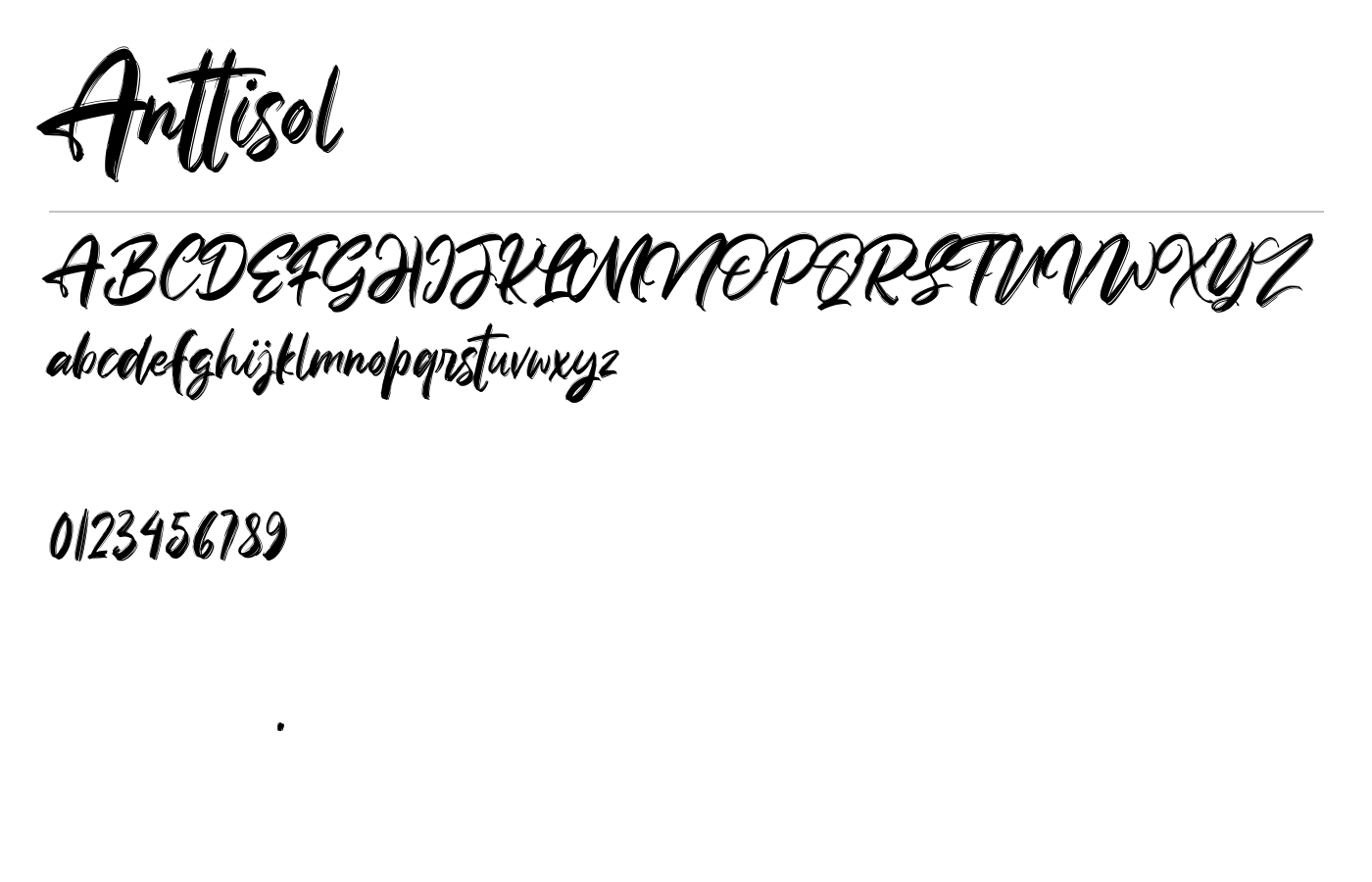
Anttisol is a dynamic and expressive script font characterized by bold, brushstroke letterforms with a hand-painted feel. Its lively strokes and flowing curves give it a modern, artistic personality, making it perfect for creative branding, logos, and eye-catching headlines. This font works best where a casual yet striking impact is needed, such as fashion labels, posters, or social media graphics.
Anttisol Font
About Anttisol Font